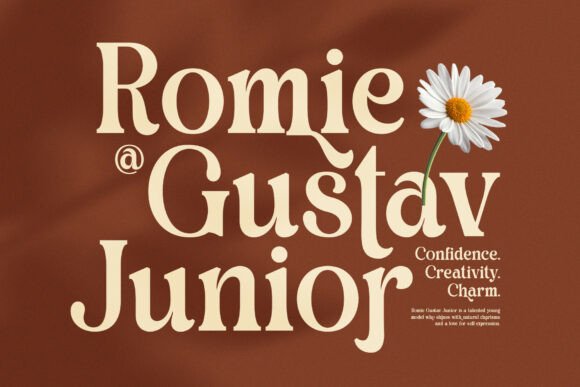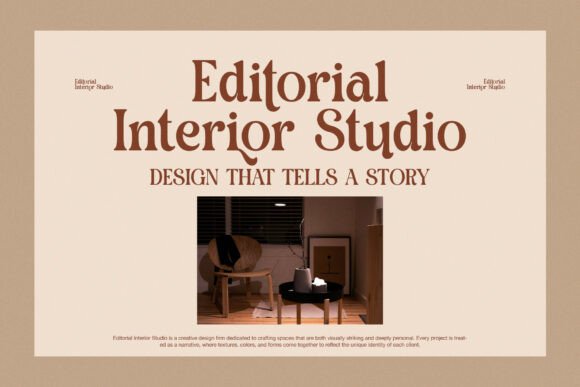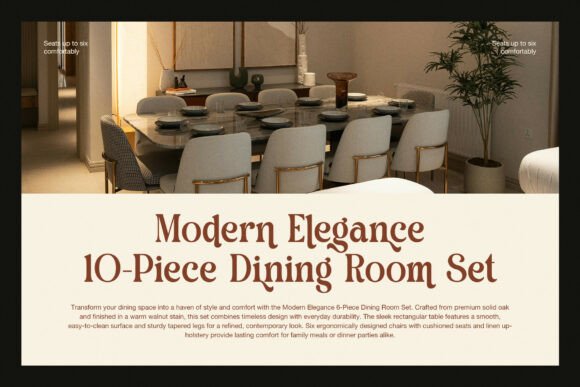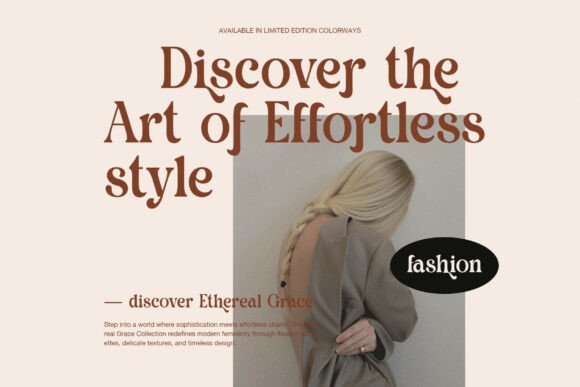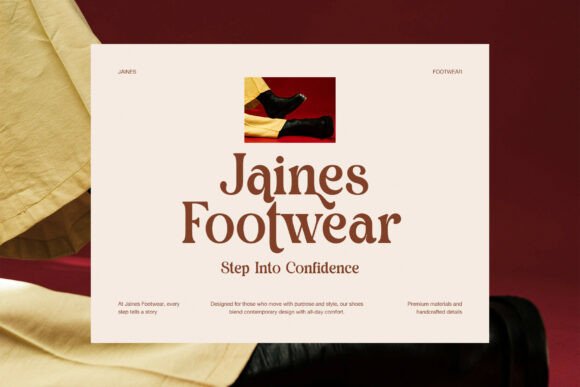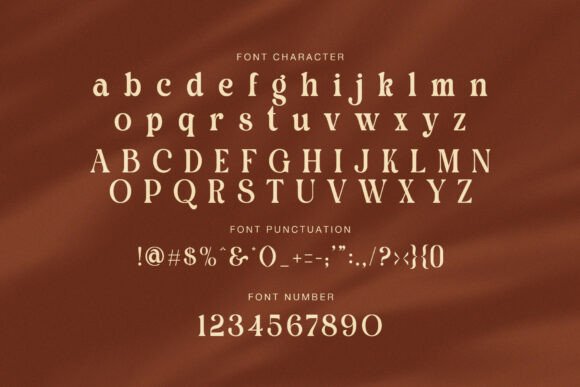
Introduction to Quine Camera Font
Have you ever stumbled upon a design that stops you in your tracks, not just because of its beauty, but because of the way it makes you feel? For designers, those moments are a reminder of the power of typography in shaping our emotions and experiences. One such font that embodies this essence is the Quine Camera Font, a serene and elegant serif typeface that has captured the hearts of creatives worldwide.
With its classic structure, soft curves, and gentle contrast, Quine Camera Font is a design resource that exudes calm beauty and refined clarity. Whether you’re working on a high-quality creative project or need a free download for your next design endeavor, this font is an excellent choice for storytelling without visual tension. Its smooth and organic letterforms ensure that headlines appear confident and approachable, making it an ideal choice for designers who value readability and versatility.
As a design resource, Quine Camera Font offers a transparent background, allowing you to focus on the story behind your project. Its timeless look and feel make it a valuable addition to any designer’s toolkit, and its free download ensures that you can access it without any barriers. In this article, we’ll delve into the world of Quine Camera Font and explore what makes it a standout choice for designers looking to create high-quality, engaging content.
Quine Camera Font
- Unique blend of vintage and modern aesthetic, perfect for creative projects.
- High-quality font with a transparent background, ideal for designers looking for a versatile design resource.
- Designed to work well at high resolutions, with a minimum recommended size of 24pt for optimal viewing.
- Perfect for use in various design applications, including graphic design, digital art, and web design.
Honest Review: Quine Camera Font
I recently stumbled upon the Quine Camera Font, and I must say it’s been a game-changer for my creative projects. This font is perfect for designers who need a unique, high-quality design resource.
Here are some of the things I love about the Quine Camera Font:
- ✨ The transparent background makes it easy to use in any design, from social media posts to posters.
However, there are a few limitations I’ve encountered:
- ⚠️ The font may not be suitable for very small or large text sizes, as it can become distorted.
- ⚠️ The font’s unique style may not be to everyone’s taste, so it’s essential to consider your project’s target audience.
Overall, I’m thoroughly impressed with the Quine Camera Font. Its high quality, creative style, and free download option make it an excellent design resource. I would highly recommend it to any designer looking for a unique font to elevate their projects.
How to Use Quine Camera Font
The Quine Camera Font is a unique and versatile design resource that offers a high-quality, free download for creative projects. This font features a transparent background, making it perfect for overlaying text on images or using as a standalone element in your design.
Tips for Getting the Most Out of Quine Camera Font
To get the most out of the Quine Camera Font, consider the following tips:
- Use the font in conjunction with a high-quality image or background.
- Combine the font with other design elements, such as shapes or graphics, to create a unique look.
Common Use Cases for Quine Camera Font
The Quine Camera Font is perfect for a variety of creative projects, including: